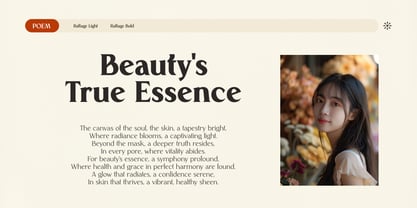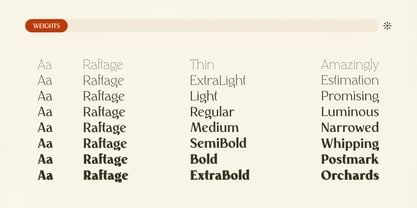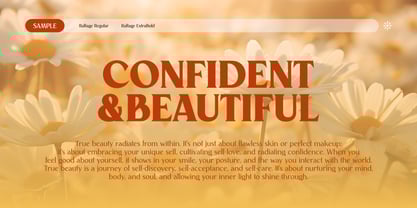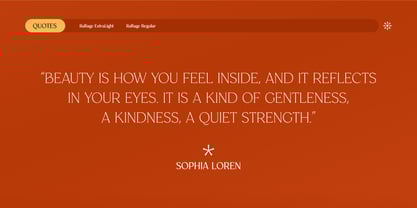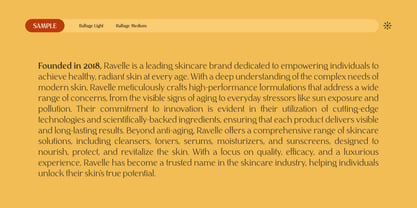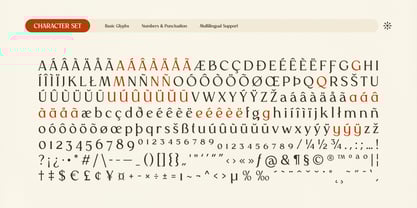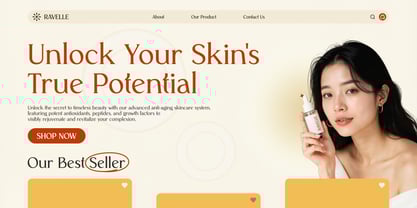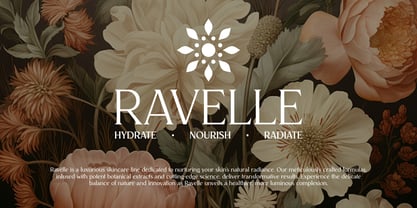
Raftage
by Zafara Studios
The Raftage Font Family was designed by Zohan Nur Muchlis and published by Zafara Studios. Raftage contains 8 styles and family package options.
Raftage is an elegant and versatile serif font family designed with exceptional readability. Featuring a classic serif structure with subtly pointed tips, Raftage exudes sophistication. Available in eight distinct weights, it effortlessly adapts to diverse design needs, from impactful headlines and titles to refined body text and impactful brand elements. Its refined aesthetic and clear legitimacy make Raftage an ideal choice for a wide range of projects, both print and digital.
The details:
305 glyphs: uppercase, lowercase, multilingual, numbers, punctuation, fractions, currency
8 weights: thin, extralight, light, regular, medium, semibold, bold, extrabold
Designers: Zohan Nur Muchlis
Publisher: Zafara Studios
Foundry: Zafara Studios